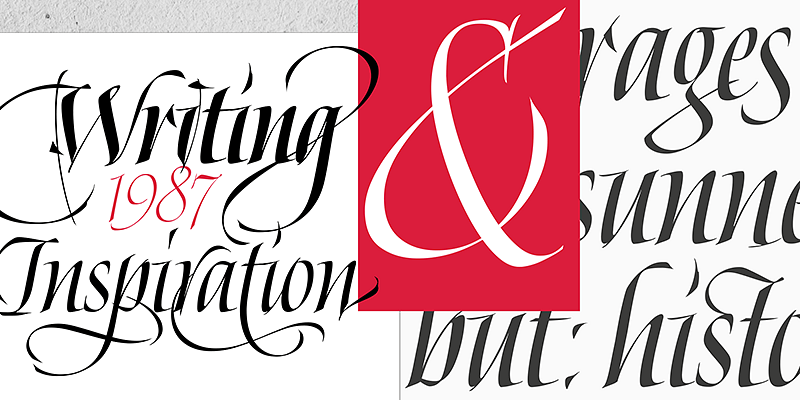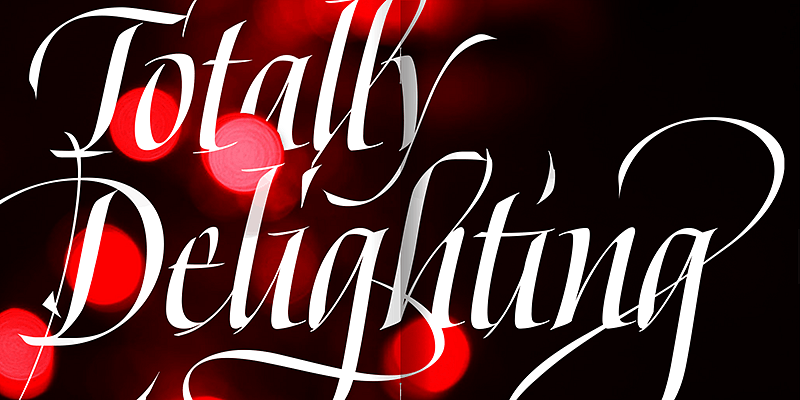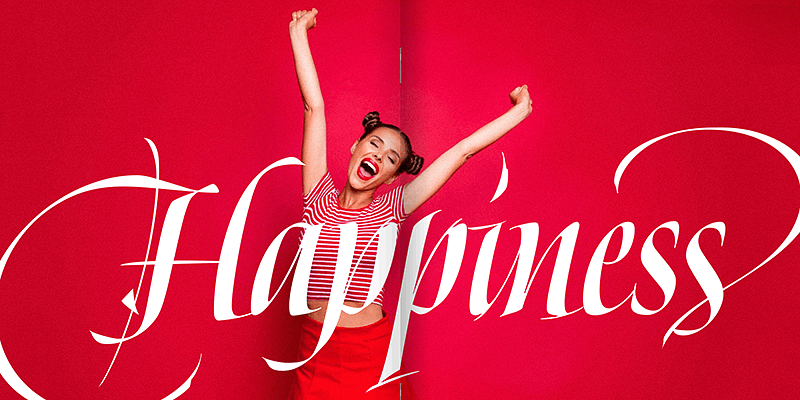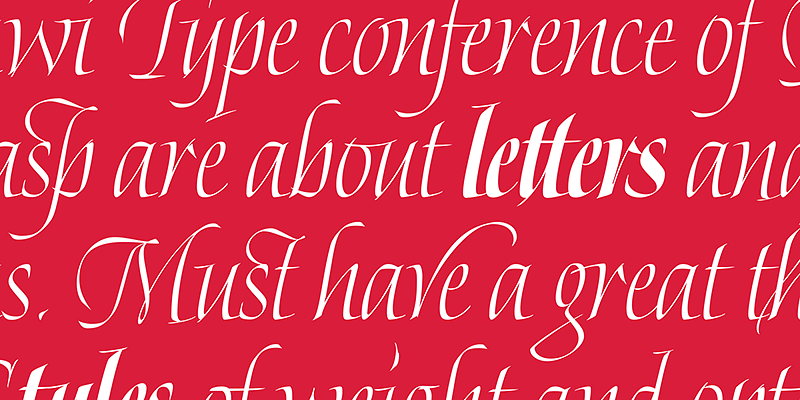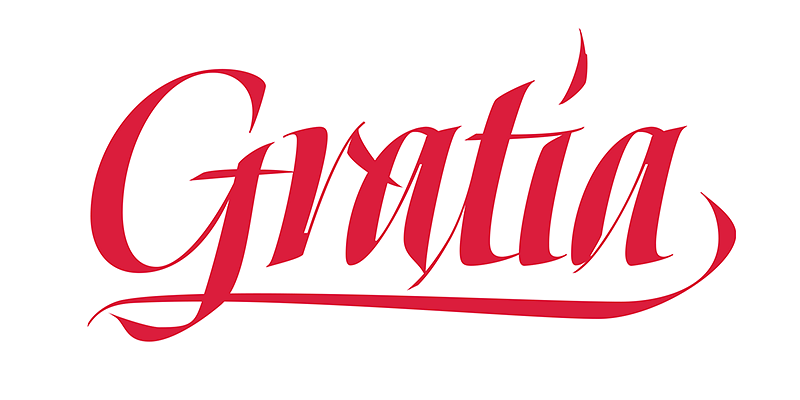
“Gratia is a mesmerizing blend of serenity and intensity in a script. With its angular curves, it takes cues from the timeless elegance of Cancelleresca calligraphy. The typeface is infused with Sproviero’s unmistakable expressiveness and sense of movement as it embodies speed, sophistication, and versatility. Its extensive range of alternates provides ample opportunities for creative exploration. From fashion spreads to international brands, Gratia adds a touch of elegance to every project.
Sproviero Type has created an award-winning catalog of intricate, beautiful, and modern typefaces, leaving no detail untouched. Type designer Maximiliano Sproviero applies his passion for calligraphy and lettering into a striking collection of individual typefaces that are fantastically decorated, imaginatively swashed, and breathtakingly original. Whatever the product or media, the fonts from Sproviero Type will help set the stage for your thoughts and ideas to be transformed into reality.